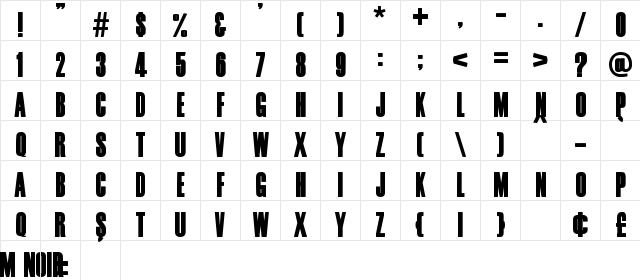
Film Noir Regular
| Designer | Joseph Dawson |
Design Context for Film Noir Typeface
Film Noir is a composed and adaptable typeface that performs quietly and consistently across a wide range of design contexts.